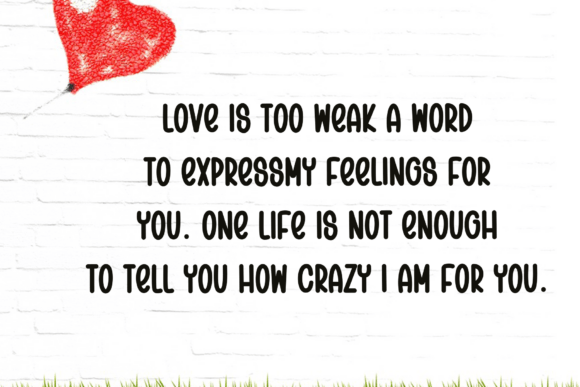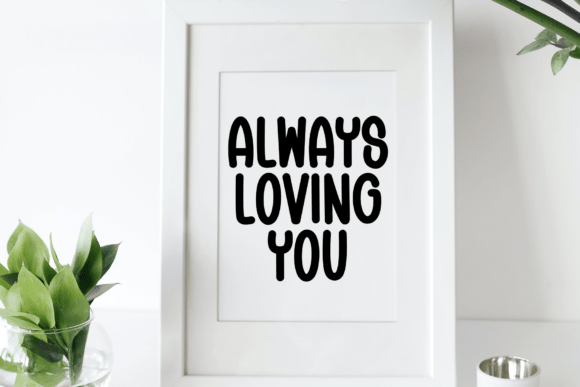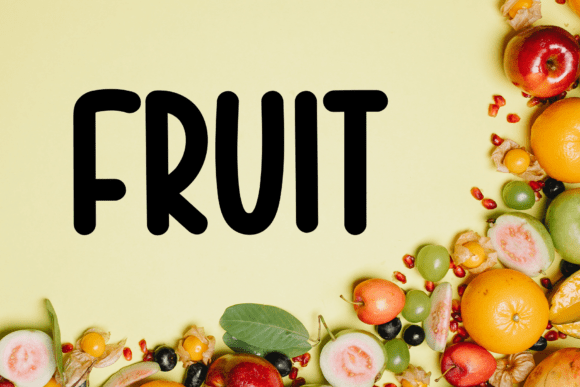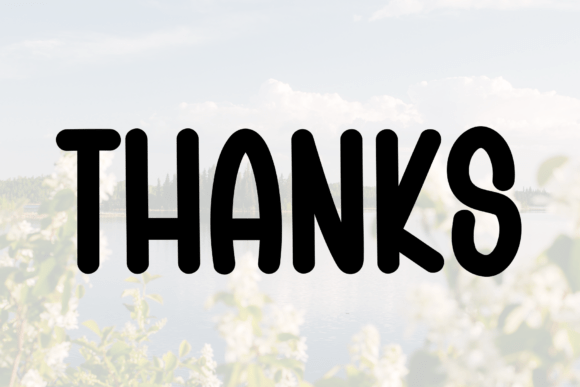
Introduction to Ordinary Person Font
Have you ever been stuck on a creative project, searching for the perfect font to give it that extra oomph? You’re not alone. As designers, we’ve all been there, scrolling through font libraries, trying to find that one font that speaks to our vision. And then, it hits us – the Ordinary Person Font. This handwritten gem is the perfect combination of relaxed and sporty, making it a go-to choice for branding, logos, and any design project that needs a touch of elegance and sophistication.
What makes the Ordinary Person Font so valuable is its unique, high-quality design that looks like it was drawn with a marker. Its transparent background and free download options make it a must-have resource for any designer looking to elevate their creative project.
Key Features of Ordinary Person Font
- High-quality design resource for creative projects, featuring a clean and modern aesthetic.
- Unique characteristic: The font’s simple yet distinctive design makes it perfect for use in a wide range of creative projects, from branding and marketing materials to digital products and publications.
- OpenType features and advanced typographic capabilities, allowing for sophisticated and nuanced typography in design projects.
Honest Review: Ordinary Person Font
As a designer, I’m always on the lookout for high-quality design resources to elevate my creative projects. The Ordinary Person Font is a free download that caught my attention, and I’m excited to share my honest review.
Here’s what works well:
- ✨ Unique and quirky character set that adds a touch of personality to any design
- ✨ Excellent for creating a friendly and approachable tone in your designs
- ✨ Transparent background makes it easy to layer over other elements
- ⚠️ Limited character set, which may not be ideal for longer blocks of text
- ⚠️ Some characters may not be as smooth or refined as more premium fonts
Overall, I think the Ordinary Person Font is a great addition to any designer’s toolkit. While it may have its limitations, its unique character set and friendly tone make it a great choice for creative projects where you want to stand out. If you’re looking for a high-quality, free design resource, the Ordinary Person Font is definitely worth checking out.
How to Use Ordinary Person Font
The Ordinary Person Font is a unique design resource perfect for creative projects that require a high-quality, approachable font. With a transparent background, this font is versatile and easy to use in various design applications.
Getting the Most Out of the Ordinary Person Font
To get the most out of the Ordinary Person Font, use it in conjunction with other design elements to create a cohesive look. Experiment with different font sizes and styles to add visual interest to your design. The font’s transparent background makes it easy to layer with other design elements.
Common Use Cases for the Ordinary Person Font
The Ordinary Person Font is perfect for use in social media graphics, blog posts, and marketing materials. Its approachable style makes it ideal for communicating with a wide audience.